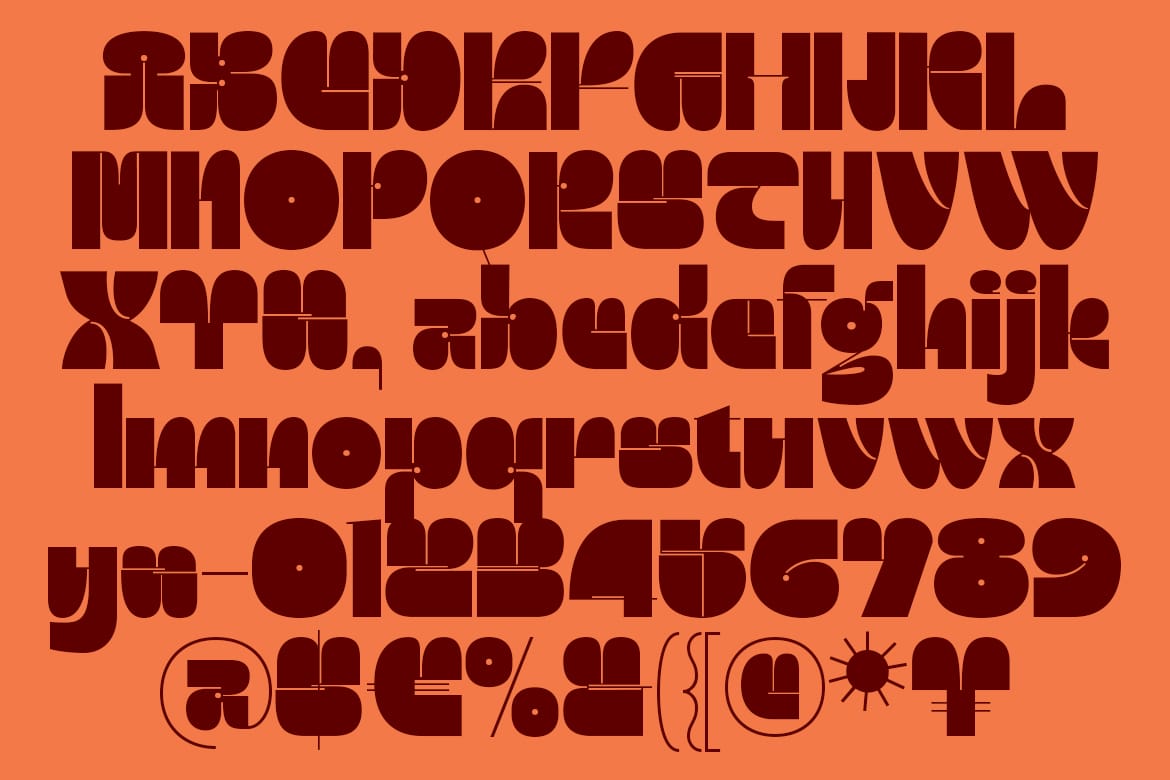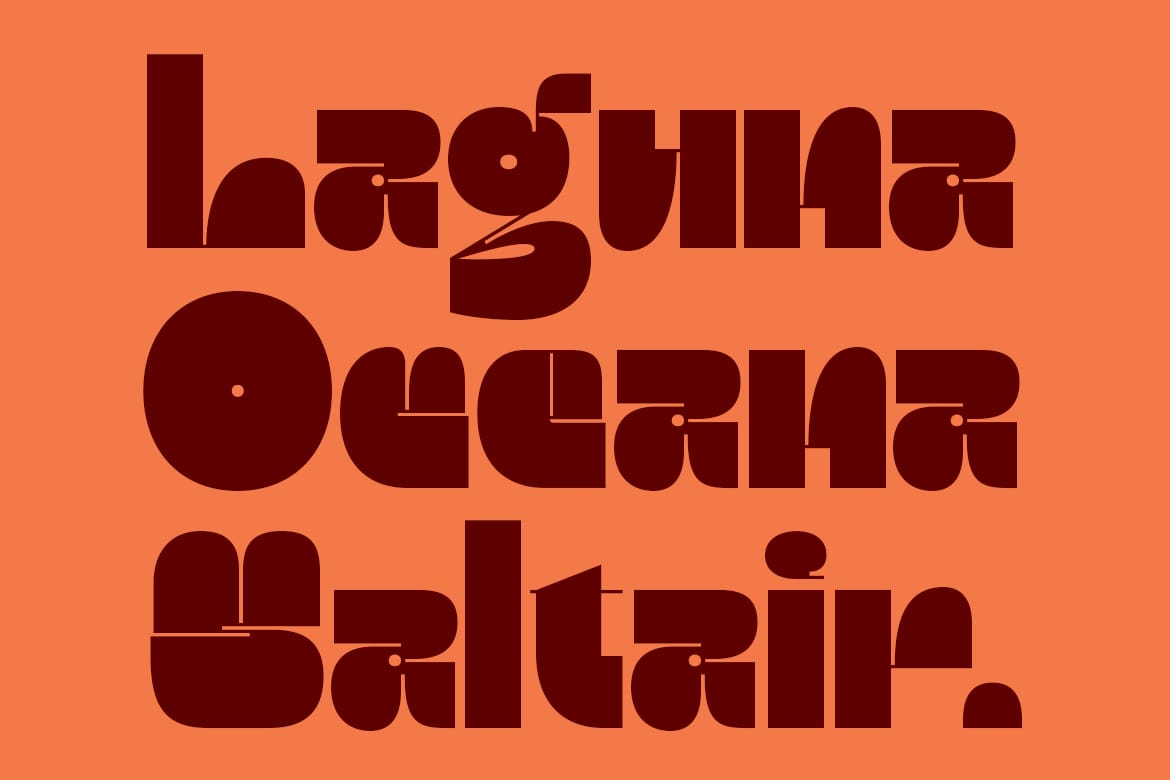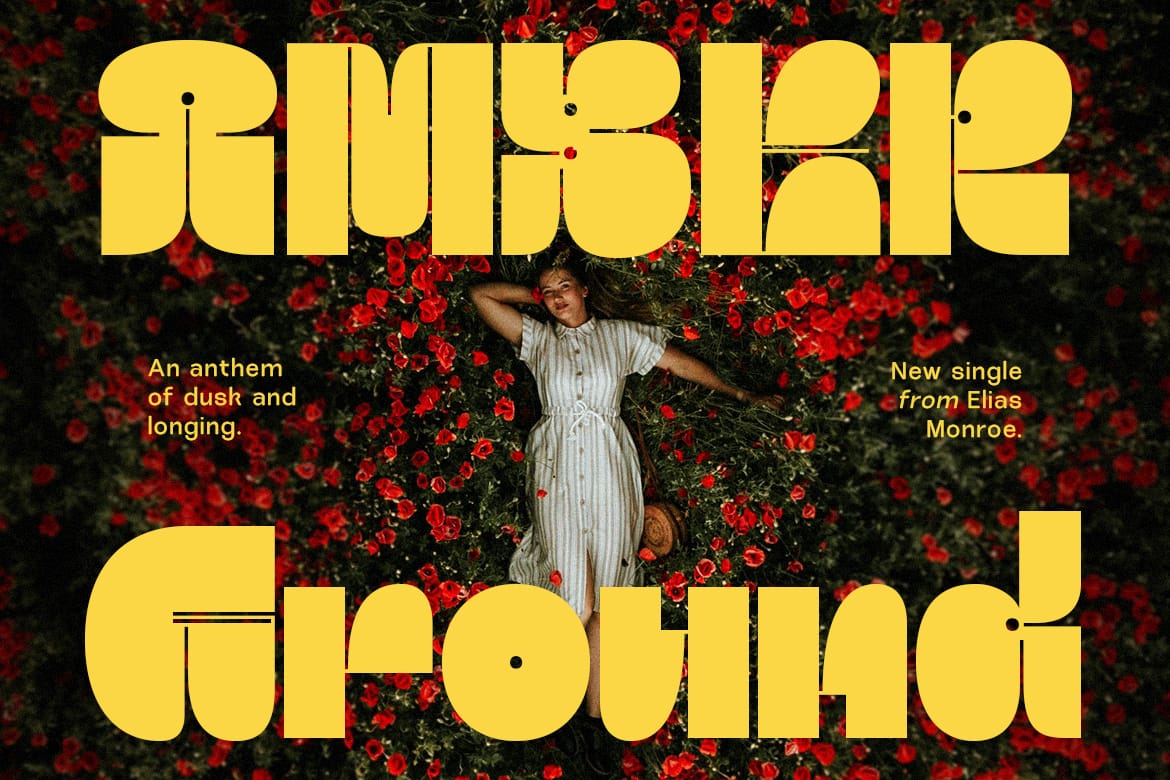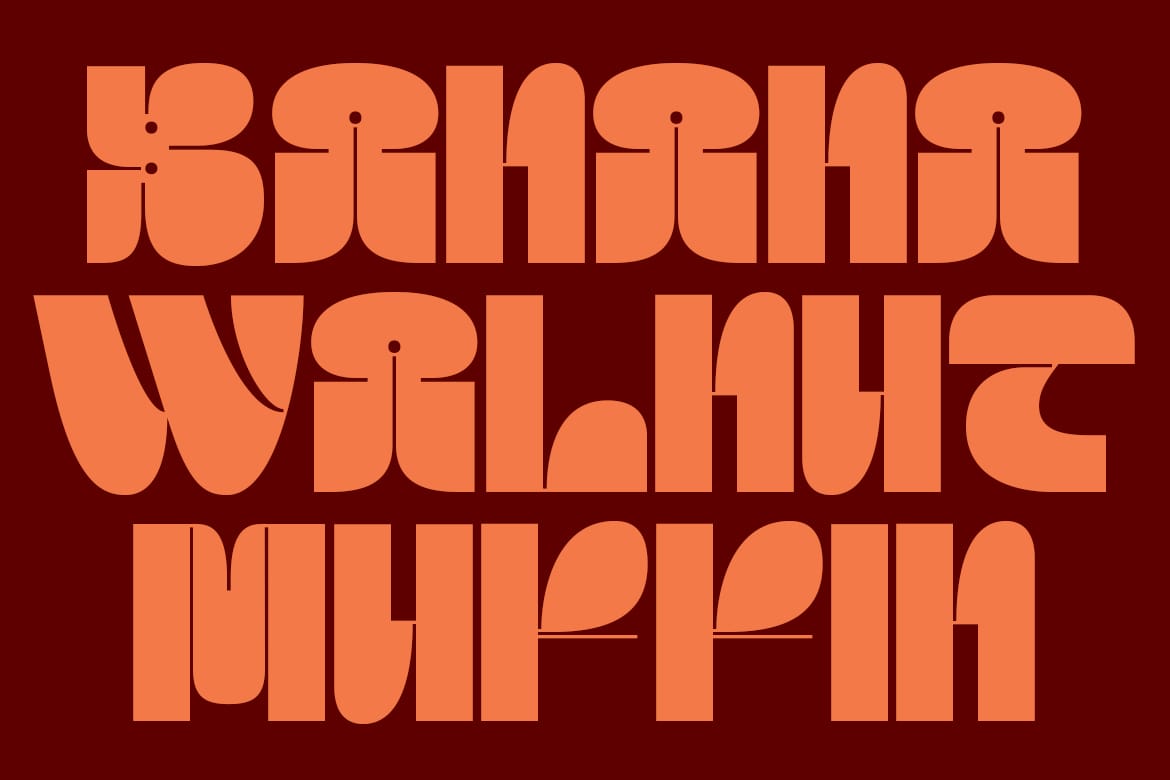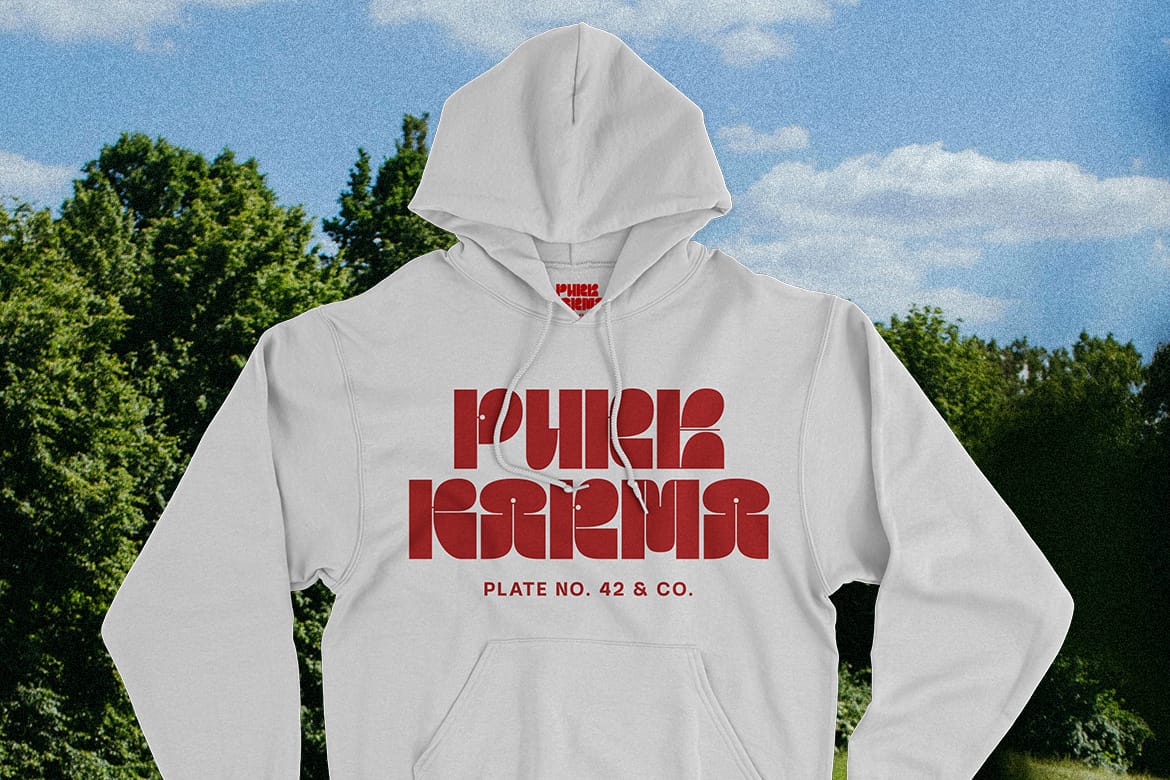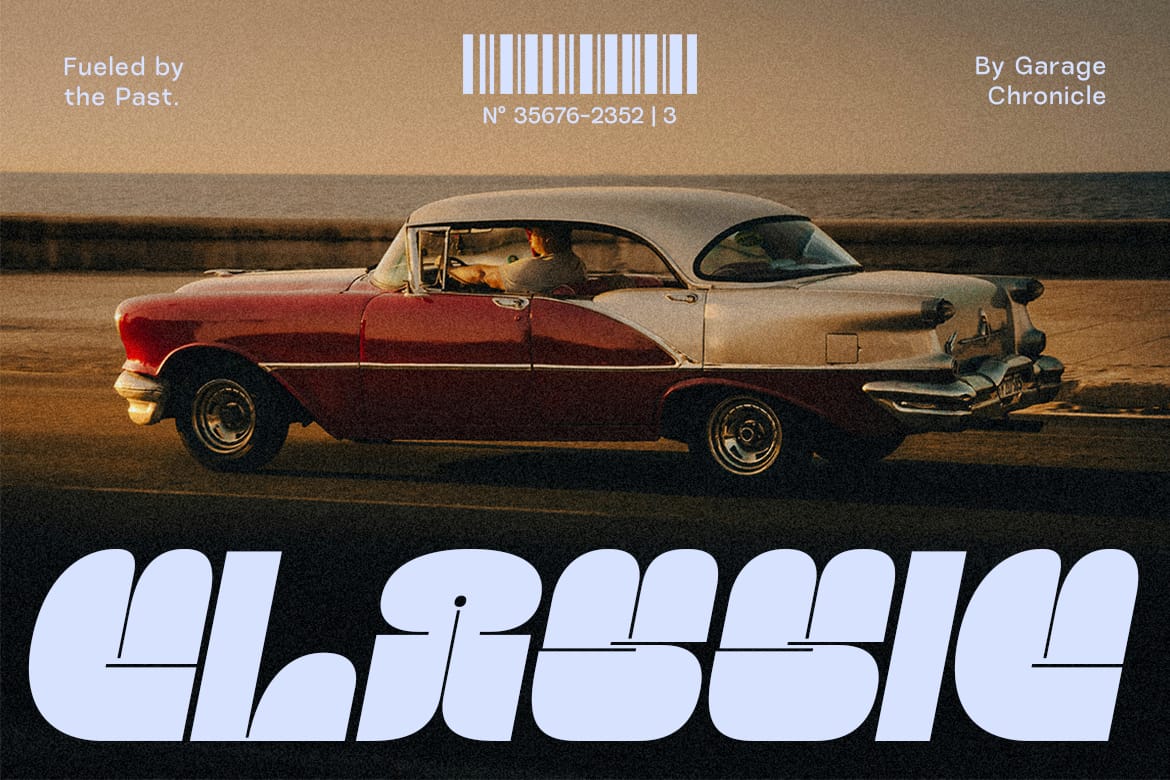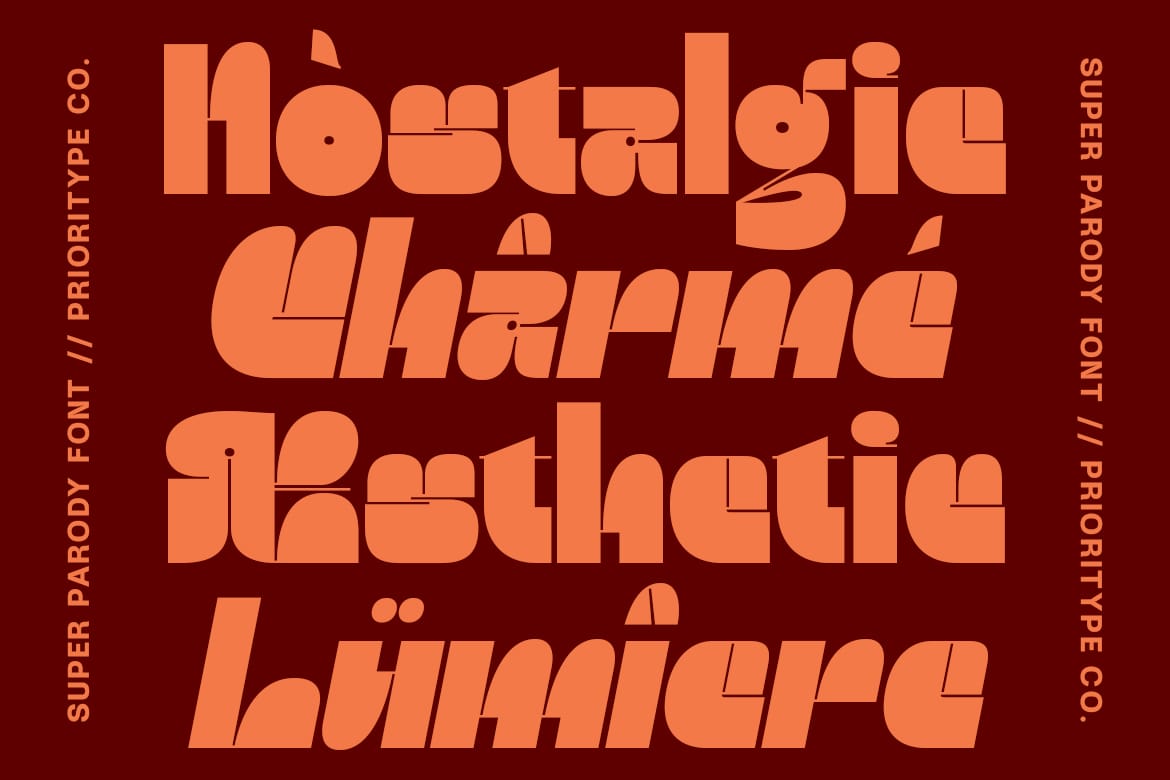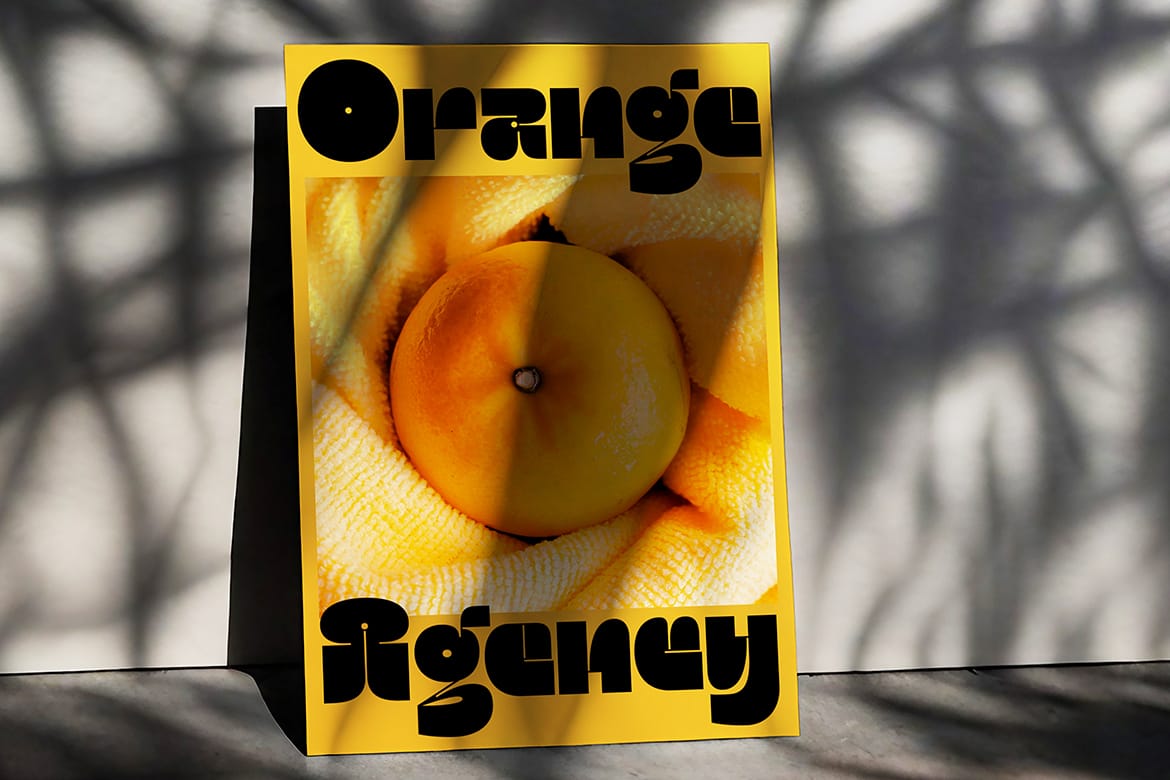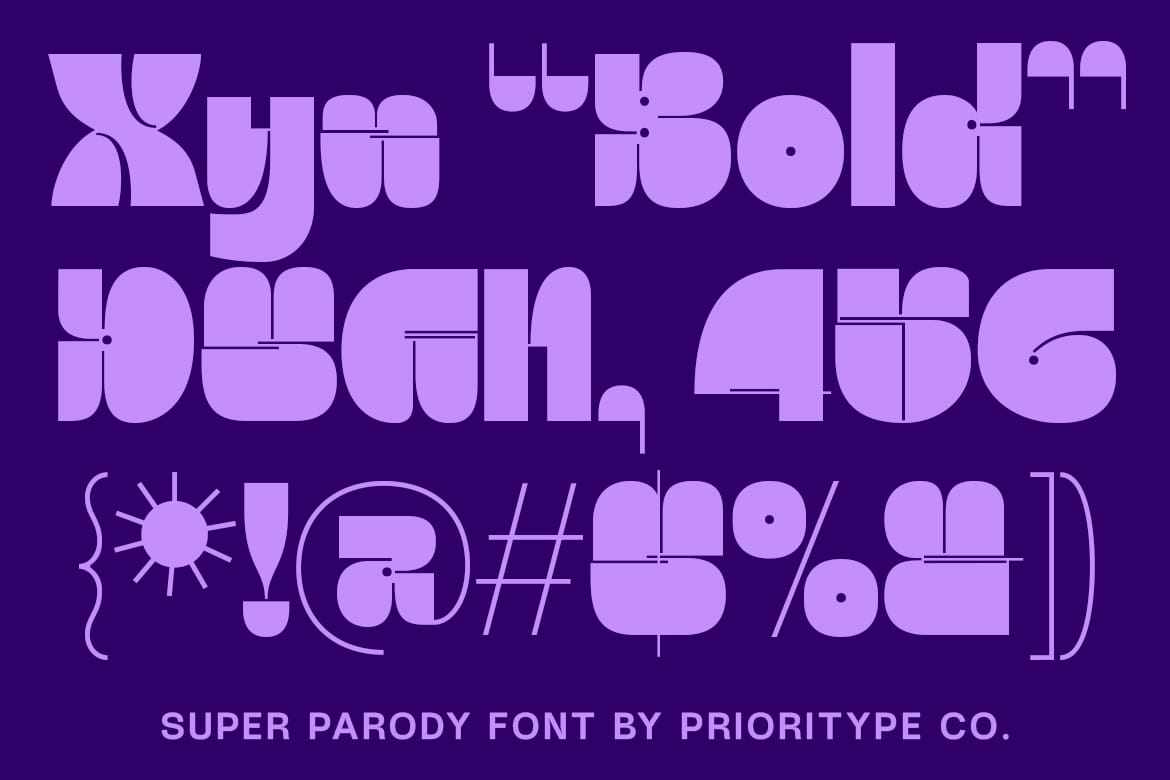
Super Parody - Retro Display Sans
Super Parody is a bold display font that seamlessly blends retro charm with a modern edge. Featuring two versatile styles (Regular and Slant) it offers flexibility for a wide range of creative projects. With its unique contrasts and playful design, Super Parody is perfect for branding, posters, and striking headlines. Whether you're going for vintage-inspired aesthetics or a contemporary vibe, this font adds a distinctive and dynamic touch.
Features: Uppercase, Lowercase, Numeral, Punctuation & Multilingual.
- Retro charm meets modern edge
- Regular and Slant styles included
- Bold display, multilingual support